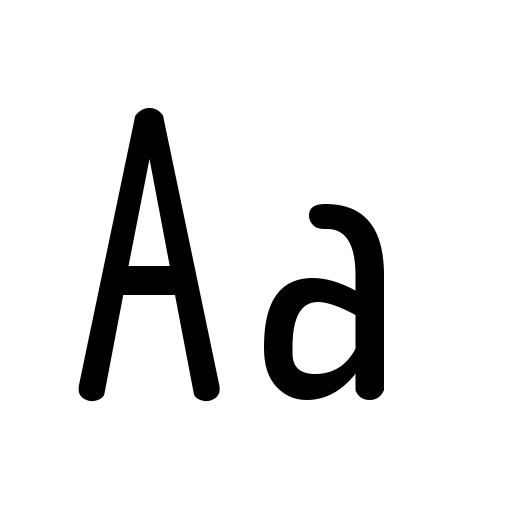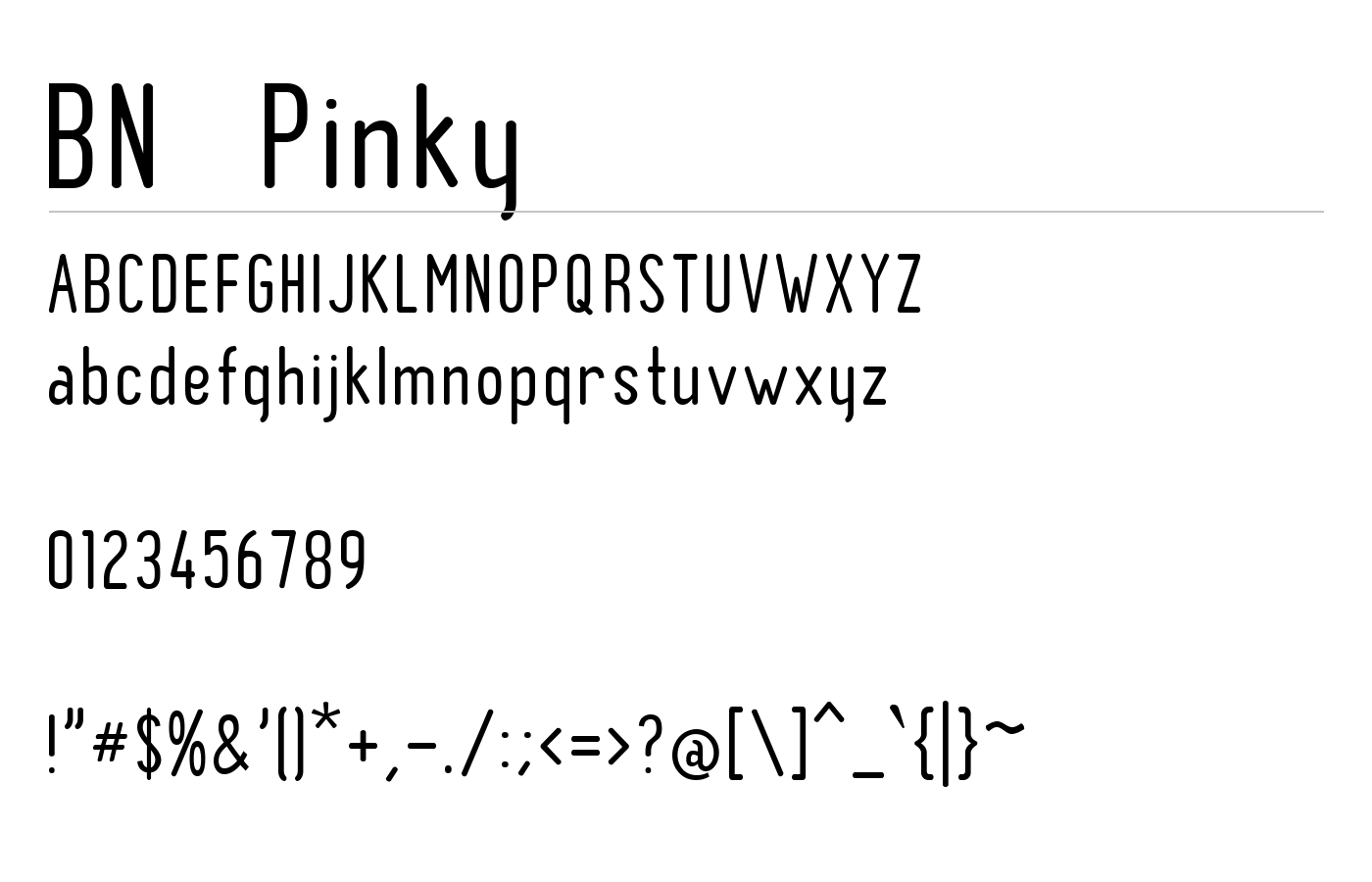
BN Pinky is a slender, tall sans-serif font with a light weight and clean, minimalist design. Its narrow letterforms and simple strokes give it a modern, slightly playful feel that works well for contemporary branding, editorial headlines, and stylish web use where a sleek, elegant yet approachable vibe is desired. This font is ideal for projects needing a distinctive, refined look without heavy or ornate details.
BN Pinky Font